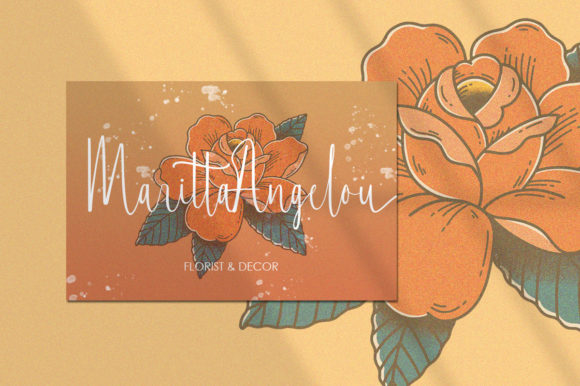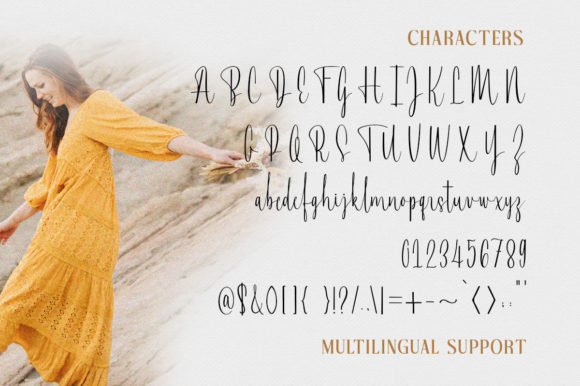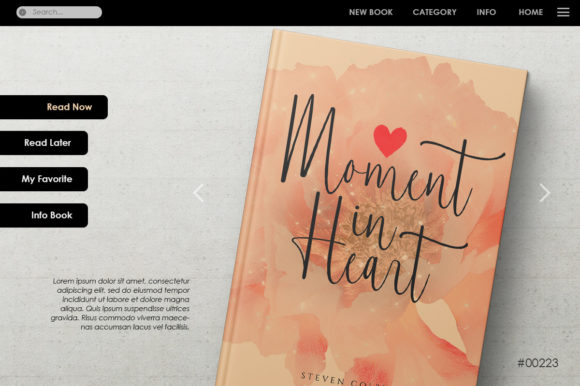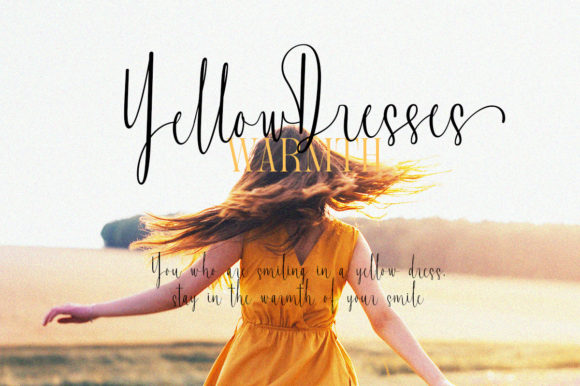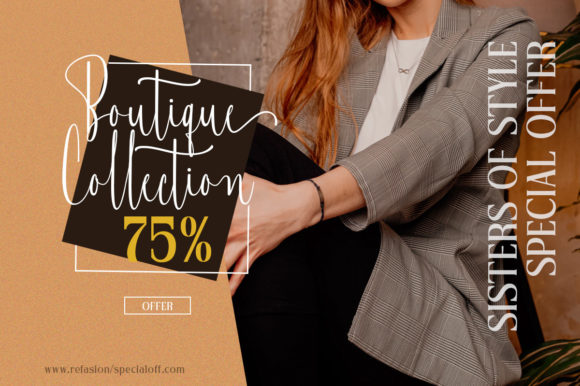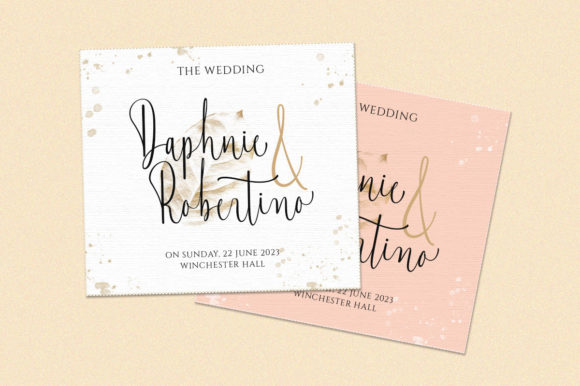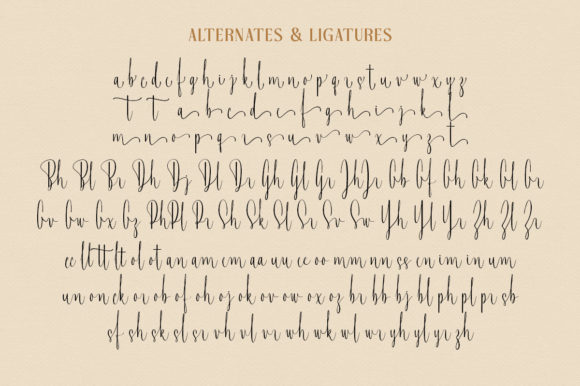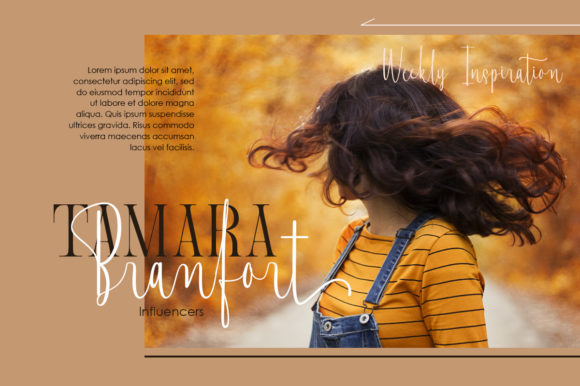
Bert Watson Font
About Bert Watson Font
Bert Watson is an enchanting handwritten font that captivates with its unique charm. This versatile script font offers a wide spectrum of applications, making it suitable for various design projects. From greeting cards to headlines, Bert Watson adds a romantic and whimsical touch to your creations. Its delicate letterforms and flowing lines evoke a sense of elegance and beauty. Whether you’re designing wedding invitations, branding materials, social media graphics, or any other project that requires a romantic feel, Bert Watson is sure to leave a lasting impression. Embrace this enchanting font and let it bring a touch of magic to your next design project.